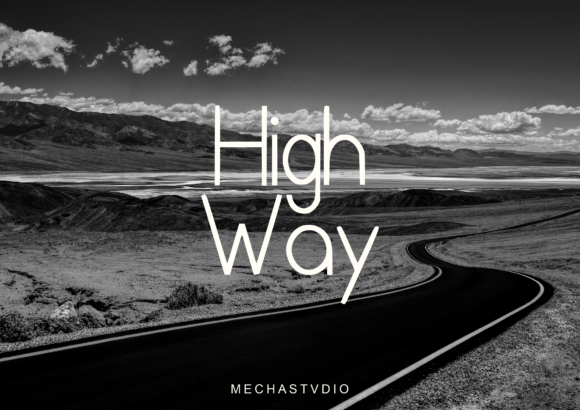
Introduction to Mechasans Font
Have you ever stared at a blank page, waiting for that perfect idea to strike, only to be interrupted by a burst of inspiration from a font you stumbled upon online? That’s exactly what happened to me when I discovered the Mechasans Font. Its sleek, minimalist design was like a breath of fresh air, and I knew right then and there that it was going to be the perfect addition to my next creative project.
As a designer, having access to high-quality design resources like the Mechasans Font can be a game-changer. Not only is it free to download, but it also boasts a transparent background, making it a versatile design tool for any project. Whether you’re working on a branding campaign or a personal blog, the Mechasans Font is sure to elevate your design to the next level.
Key Features of Mechasans Font
- High-quality design for creative projects: Mechasans Font is a premium design resource that offers a unique and stylish look for your projects.
- Unique and futuristic style: Mechasans Font features a unique and futuristic style that’s perfect for sci-fi, technology, and futuristic-themed projects.
Honest Review: Mechasans Font
I recently came across the Mechasans Font while searching for a unique design resource for a creative project. I was excited to try it out and see if it would meet my expectations.
- ✨ High quality design with a futuristic vibe that’s perfect for sci-fi or tech-related projects.
- ⚠️ Limited font styles and weights, which may not be suitable for projects that require a wide range of typography options.
- ⚠️ Not as versatile as some other fonts, which may limit its use in different design contexts.
Overall, I’m impressed with the Mechasans Font. While it may not be perfect for every design project, it’s a great addition to any designer’s toolkit, especially for those working on high-quality, futuristic-themed projects. With a little creativity, it can be a valuable design resource.
Experiment with different font sizes, colors, and styles to create visually appealing designs. Use the Mechasans Font in combination with other design elements to add depth and interest to your creative project.
The Mechasans Font is ideal for a variety of creative projects, including graphic design, digital art, and typography. Use it to create eye-catching titles, headings, and body text for your designs.